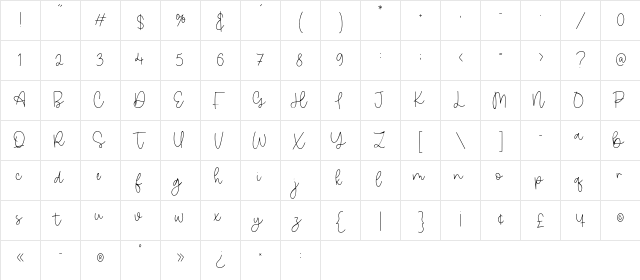
Nature Violces Regular
Design Context for Nature Violces Typeface
Nature Violces is a composed and adaptable typeface that performs quietly and consistently across a wide range of design contexts.